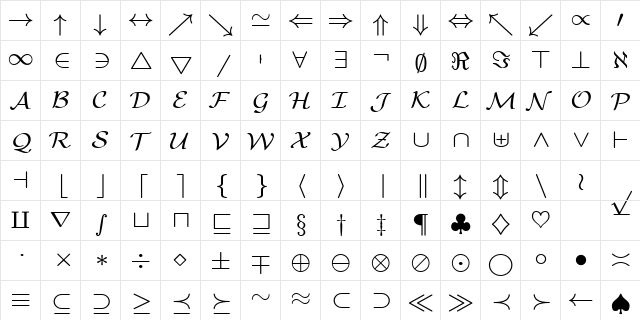
cmsy7 Regular
Design Context for cmsy7 Typeface
cmsy7 is a composed and adaptable typeface that performs quietly and consistently across a wide range of design contexts.